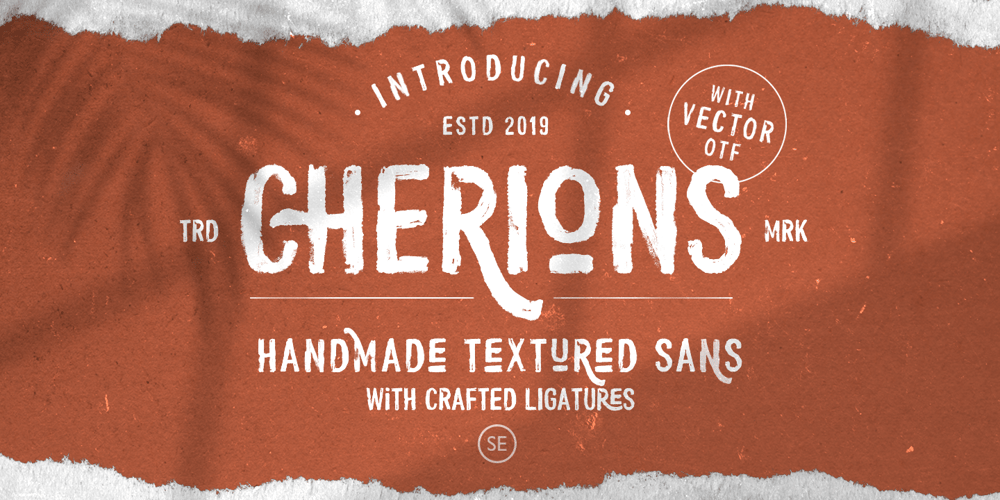
Cherions Font Family was designed by Sarid Ezra and published by Sarid Ezra. Cherions contains 1 styles and family package options. Introducing, Cherions!Cherions is a textured handmade font . You can use these fonts for various purposes such as making realistic hand lettering, for promotions, or other purposes that will make your design more real as handmade. This font also contain fabulous ligatures that will make your design stand out! This font also support multi language.